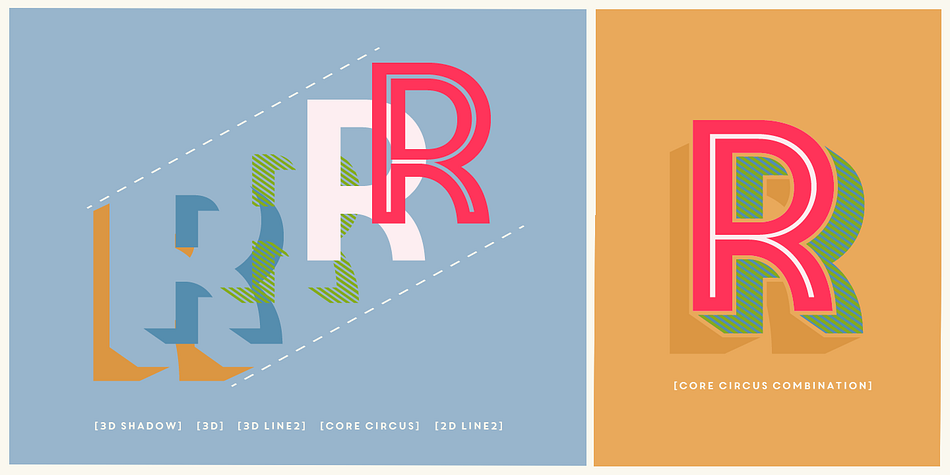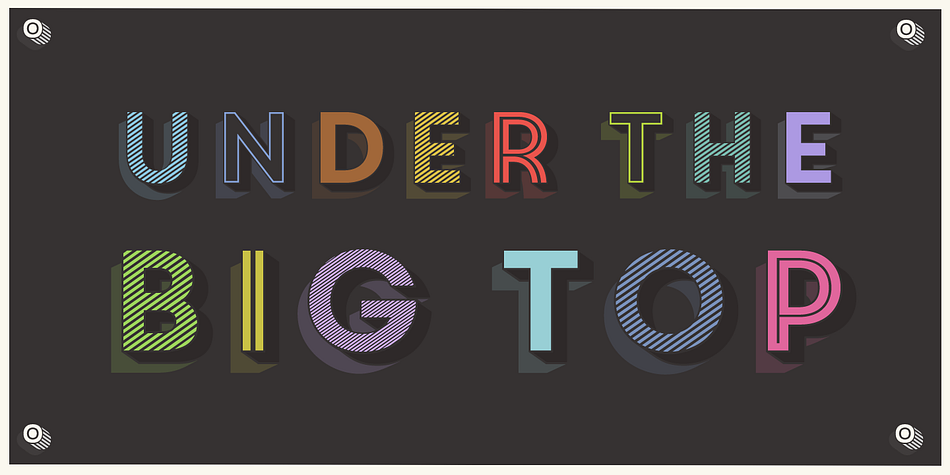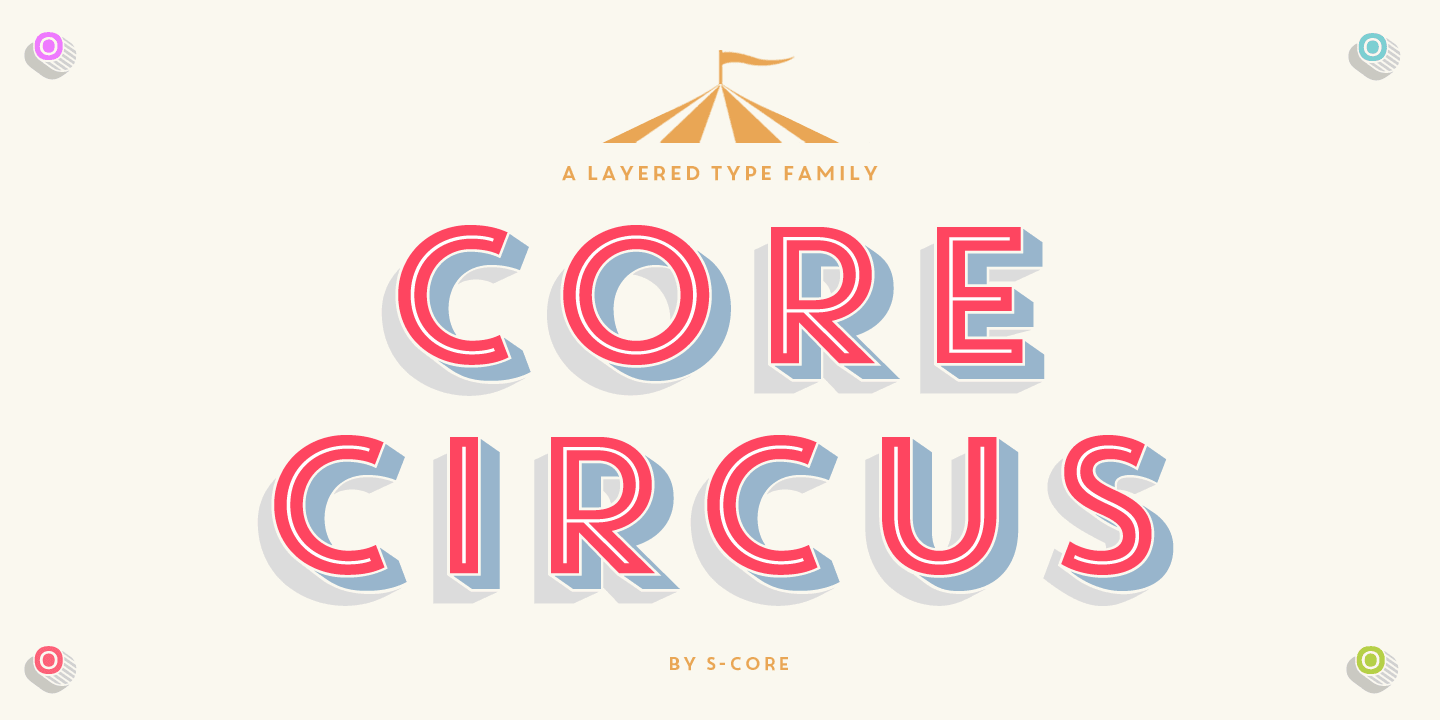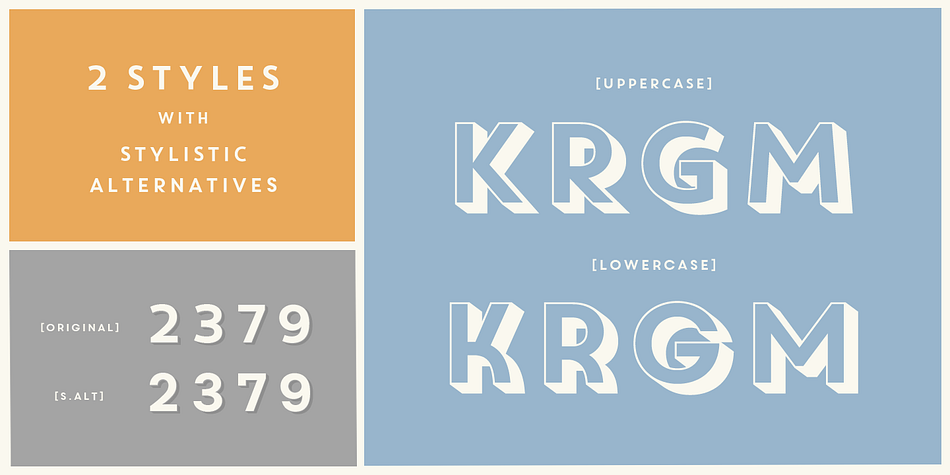
Core Circus is a display sans font family. This typeface has twenty styles and was published by S-Core.
Core Circus is a layered type family consists of seven 3D effect layers, eight 2D effect layers and one shadow effect layer. Uppercase and lowercase letters are separated by such features that counters are opened or closed. Core Circus provides other closed counter styles such as numbers with opentype feature(Stylistic Alternatives).
The shape of Core Circus is simple but combinations of effect fonts are impressive. Core Circus makes your works to be charming and special with endless combinations(at least 262,551 kinds).
This family is really nice for book titles, headlines, logotypes and any artworks.